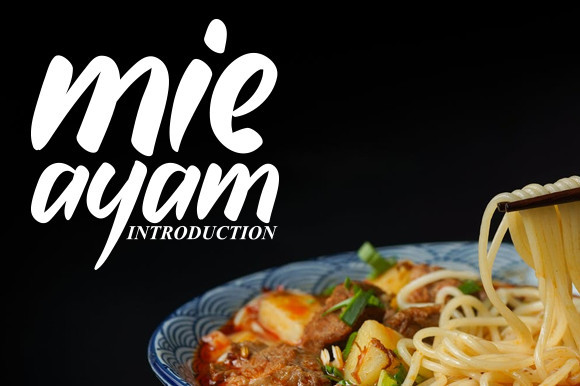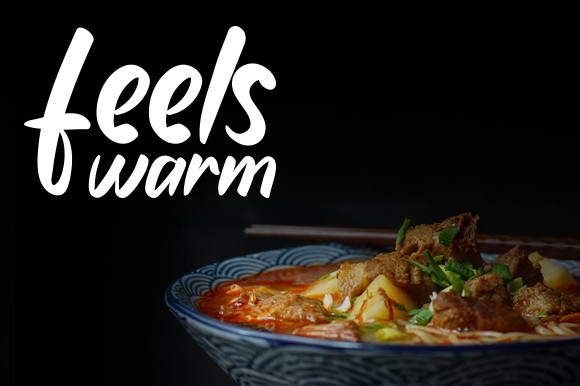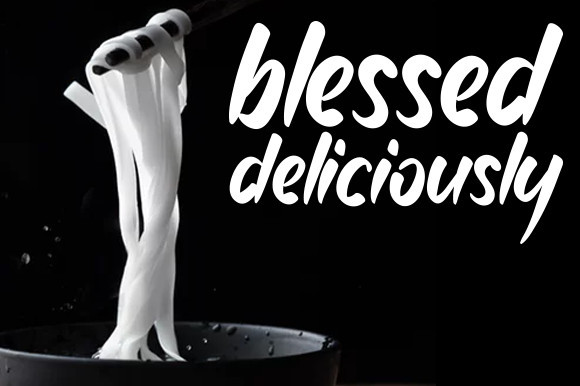
Mie Ayam Font
Mie Ayam is a bold display font, carefully handcrafted to become a true favorite. This enchanting font will turn any creative idea into a true standout.